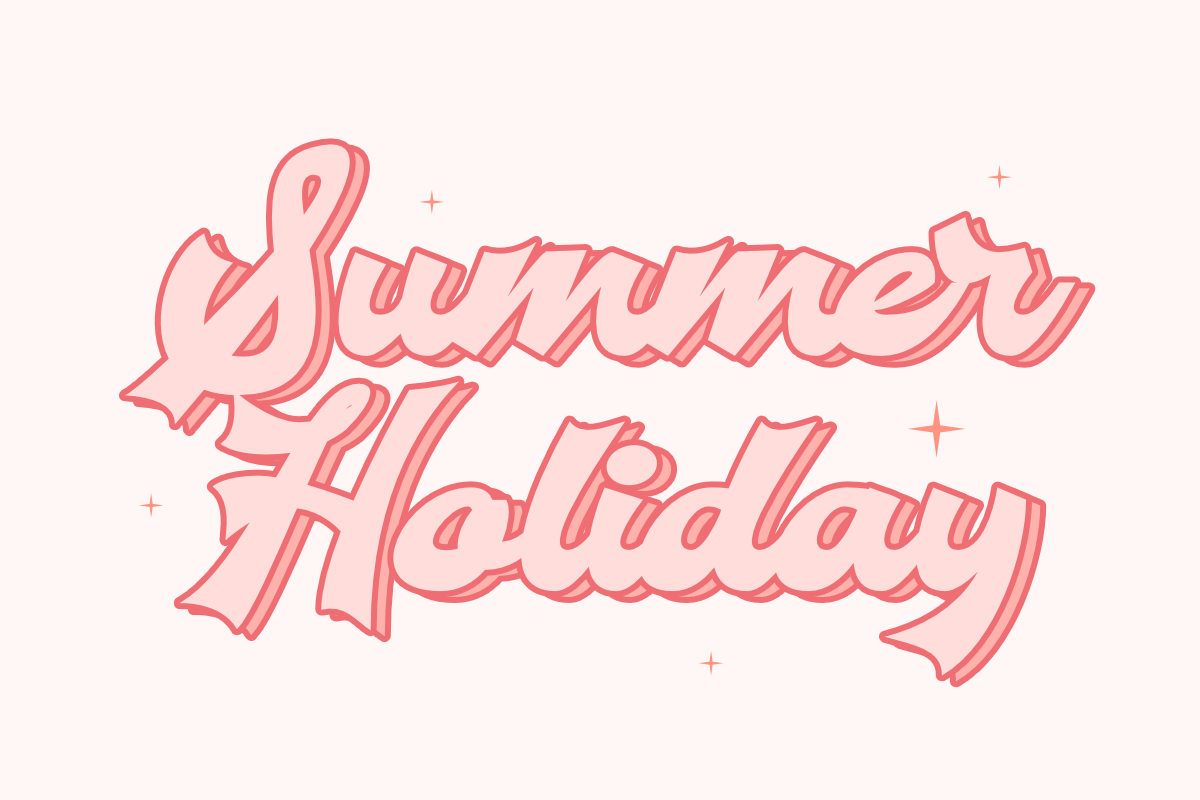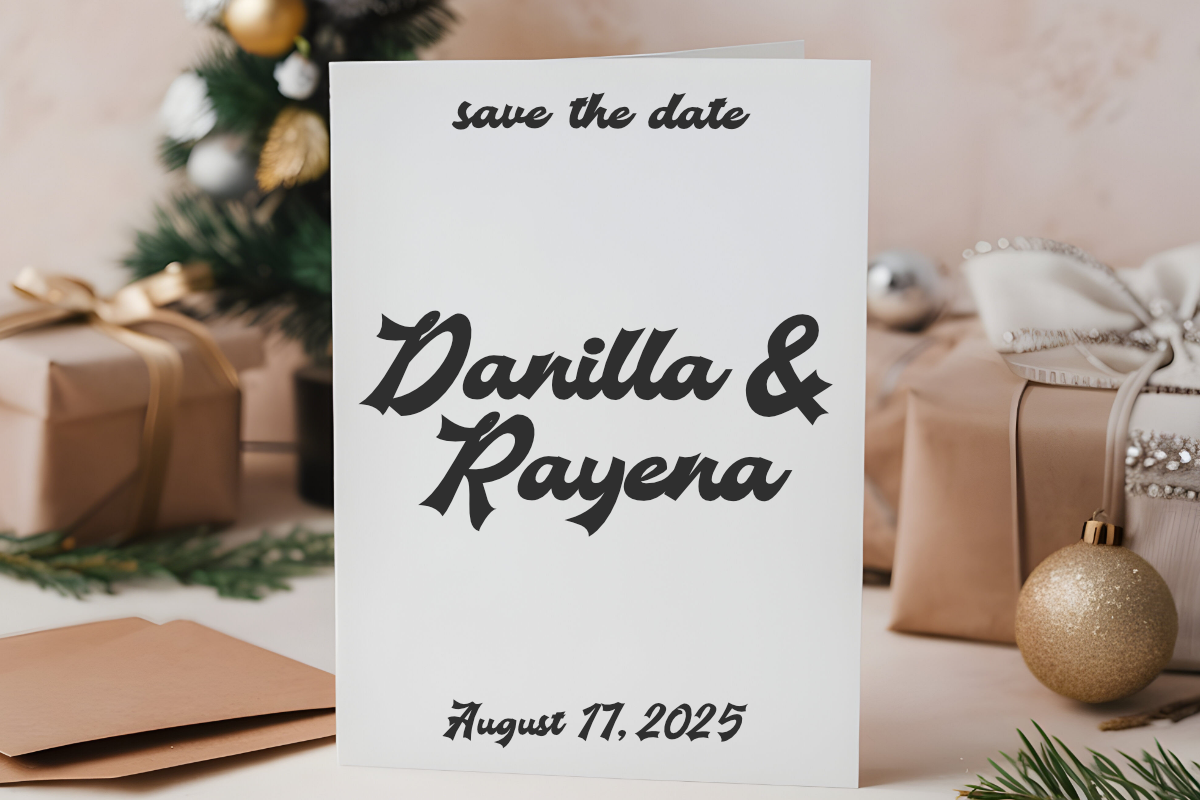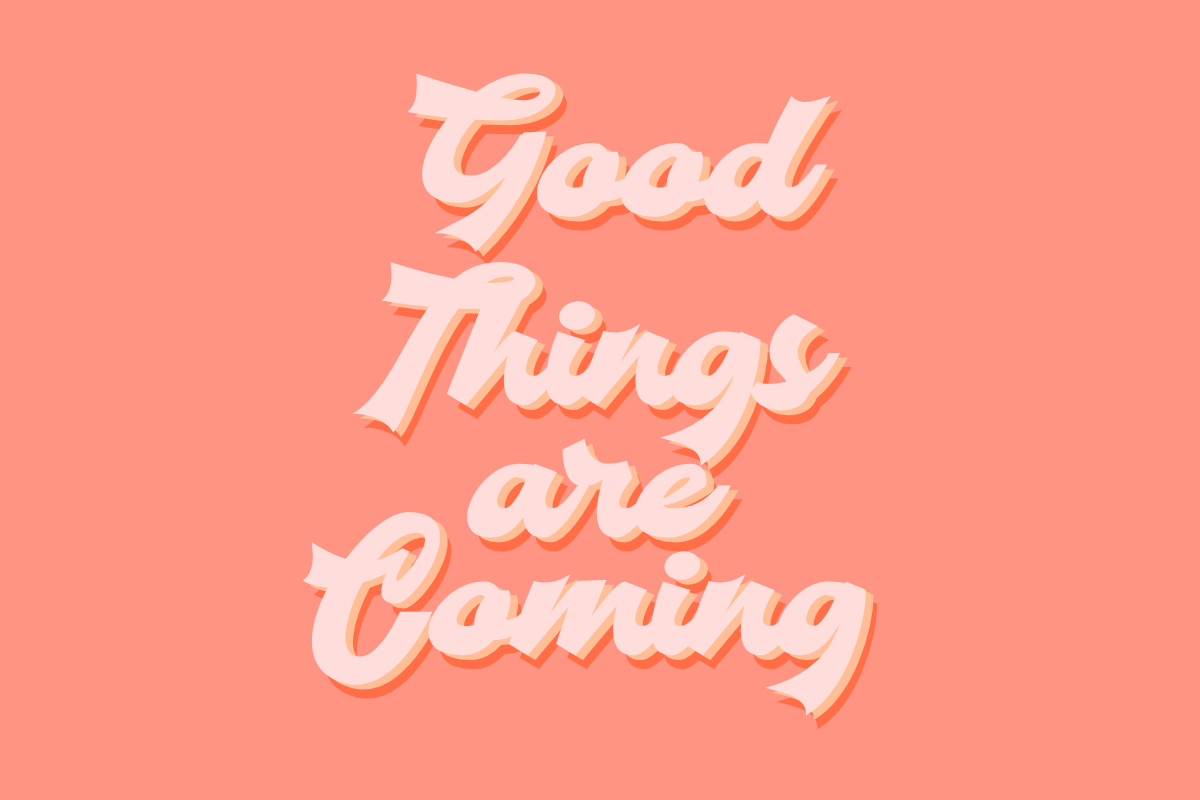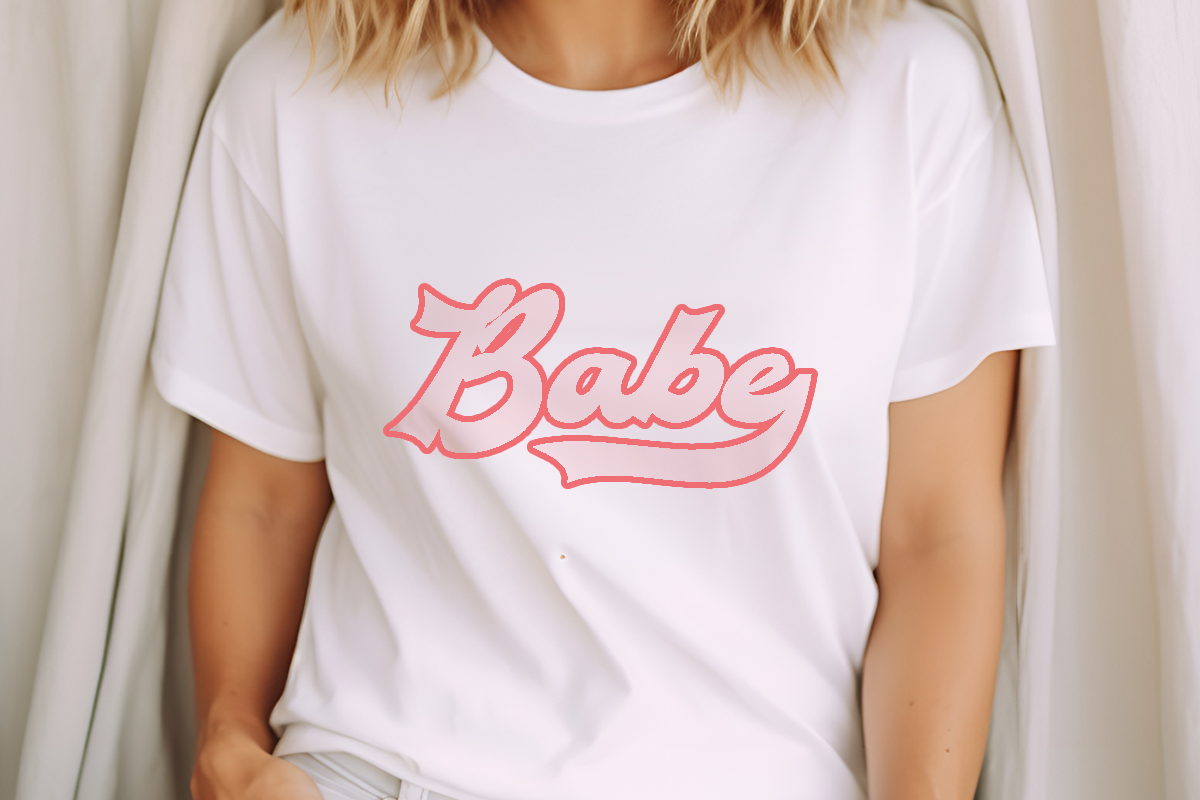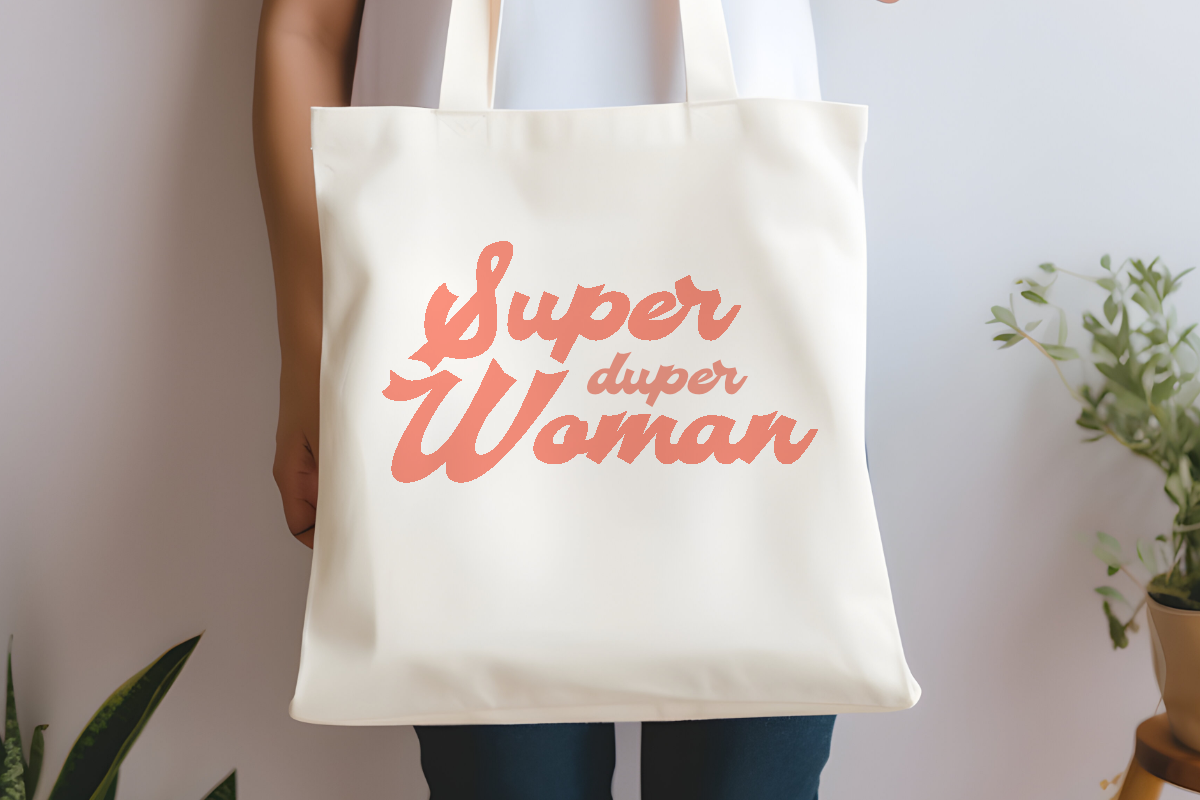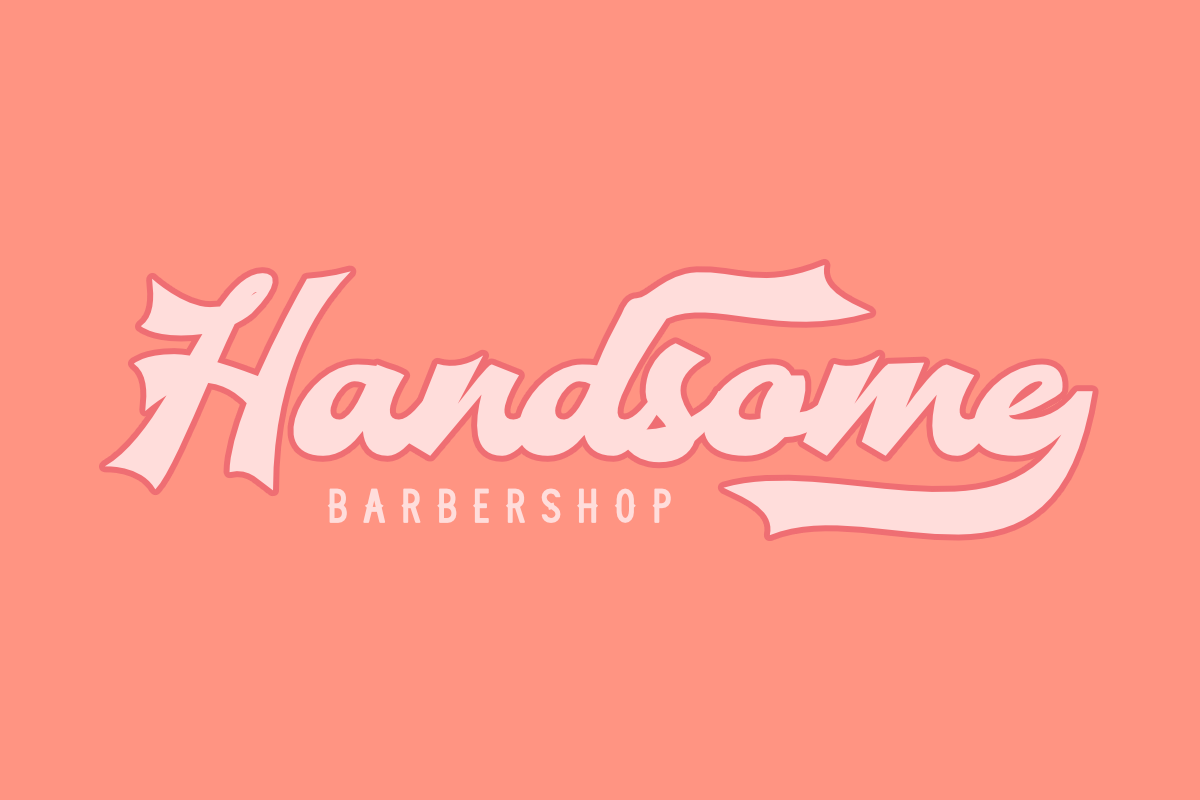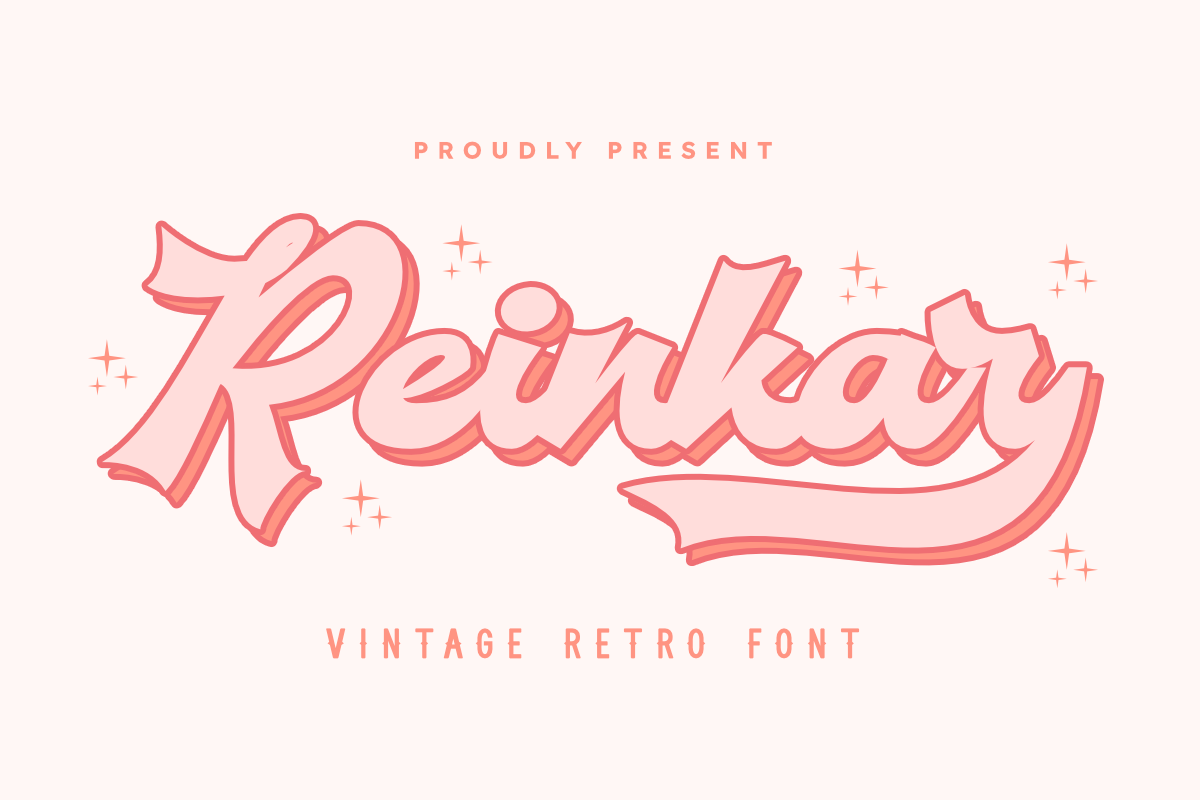
Reinkar - Retro Script Font
Reinkar is a groovy/retro handwritten script font. This font is perfect for retro designs, procreate, branding, shirts, logos, procreate, stickers, cricut projects, instagram, social media and more!